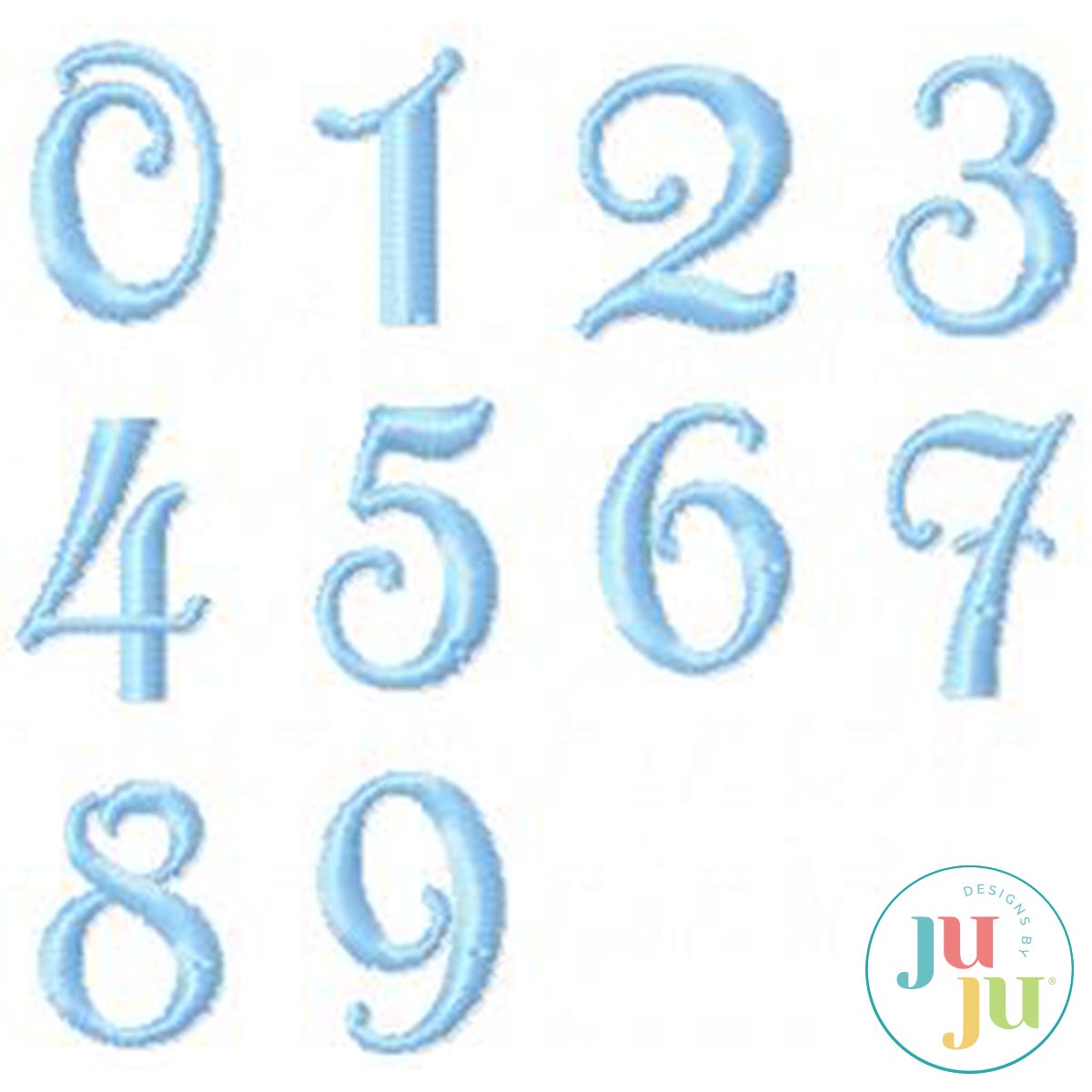
Anna Satin Stitch Embroidery Font by Oma's Place
This 0.75" font is perfect for personalizing your gift giving. You see it used on our girl/doll purses for the 6x10 hoop. It covers well for use on blankets and blanket labels. All upper and lower case letters, numbers 0-9, and commonly used punctuations are included with your purchase.